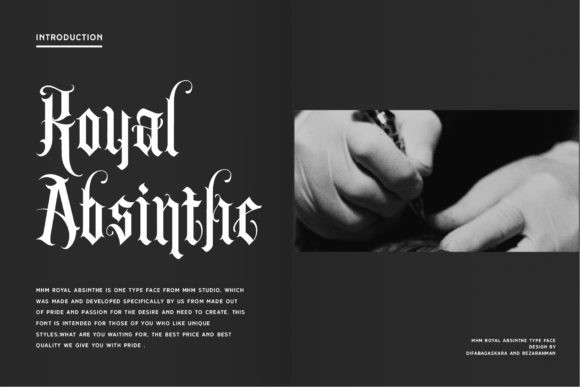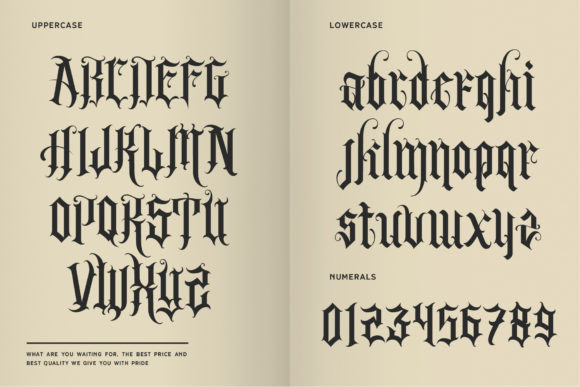
Royal Absinthe Font
Royal Absinthe is a daring and genuine blackletter font. Masterfully designed to become a true favorite, this font has the potential to bring each of your creative ideas to the highest level!